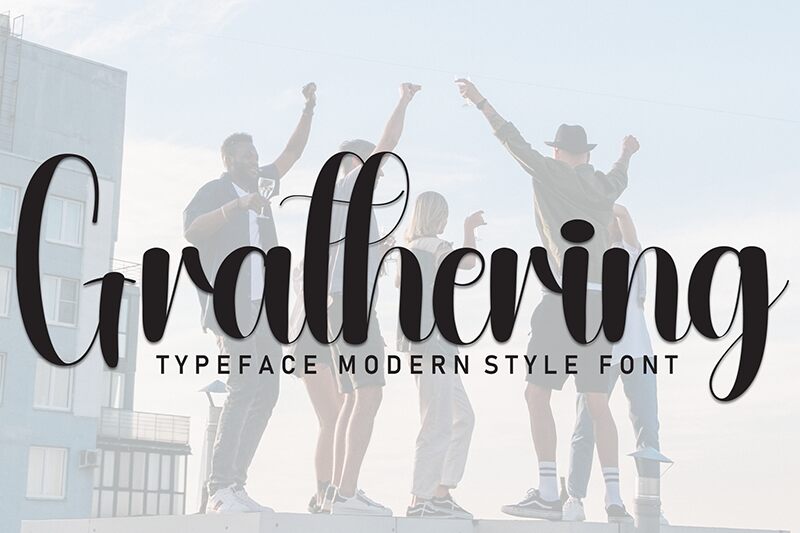
Grathering
Grathering font by Andi Moz is an elegant and flowing calligraphy font with a condensed width. The script-like body, modern flair, artistic touches, and expressive mood generate a perfect font with an attractive presence on both digital media and print.